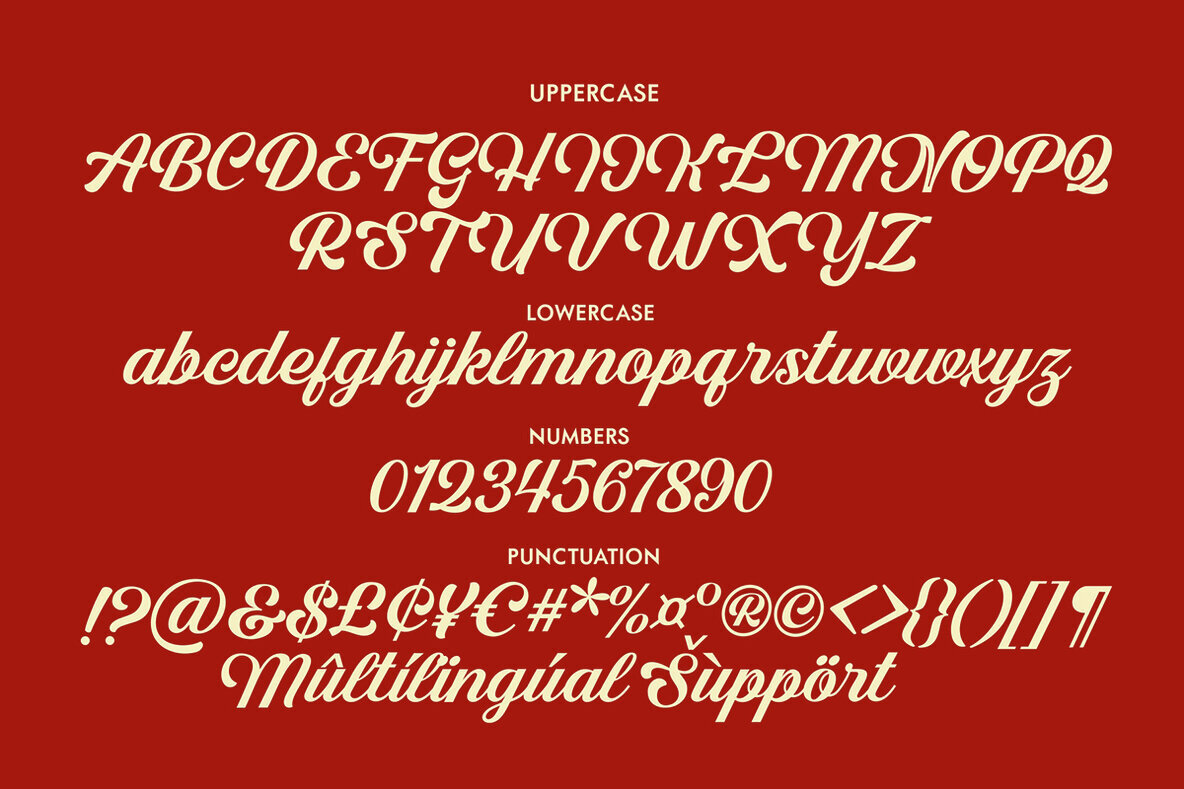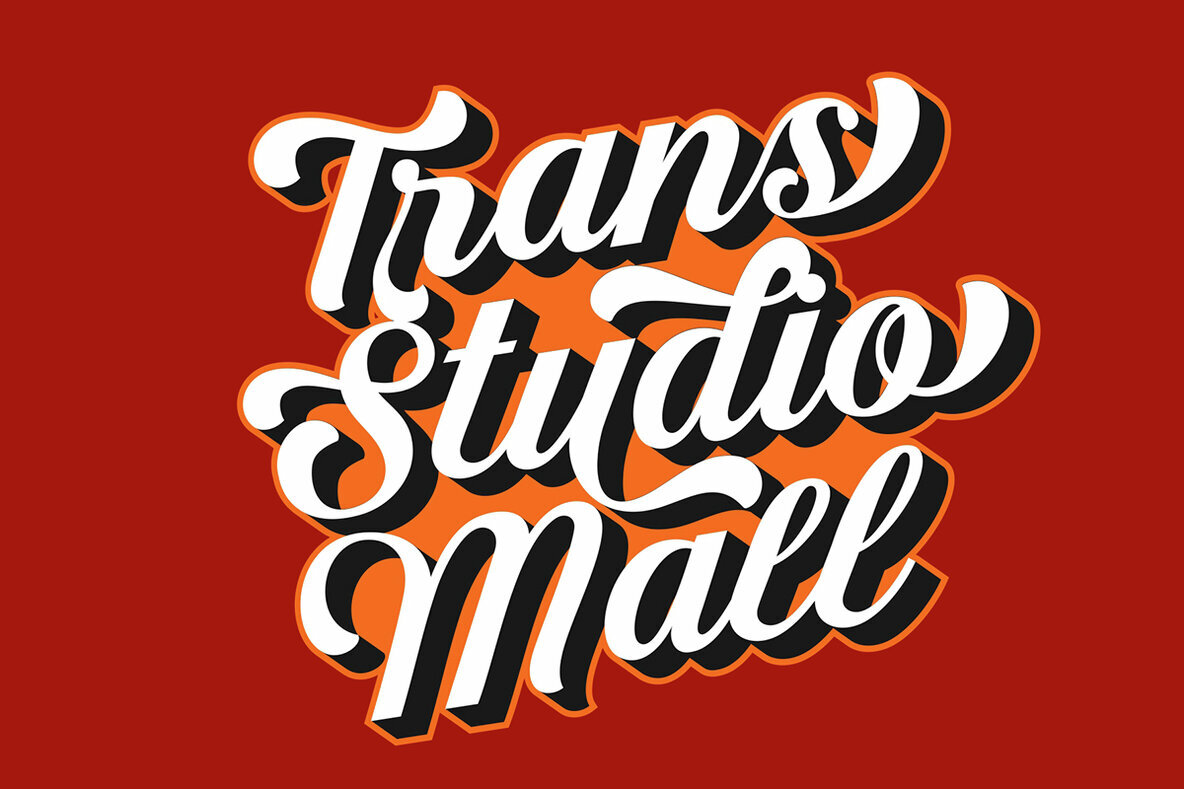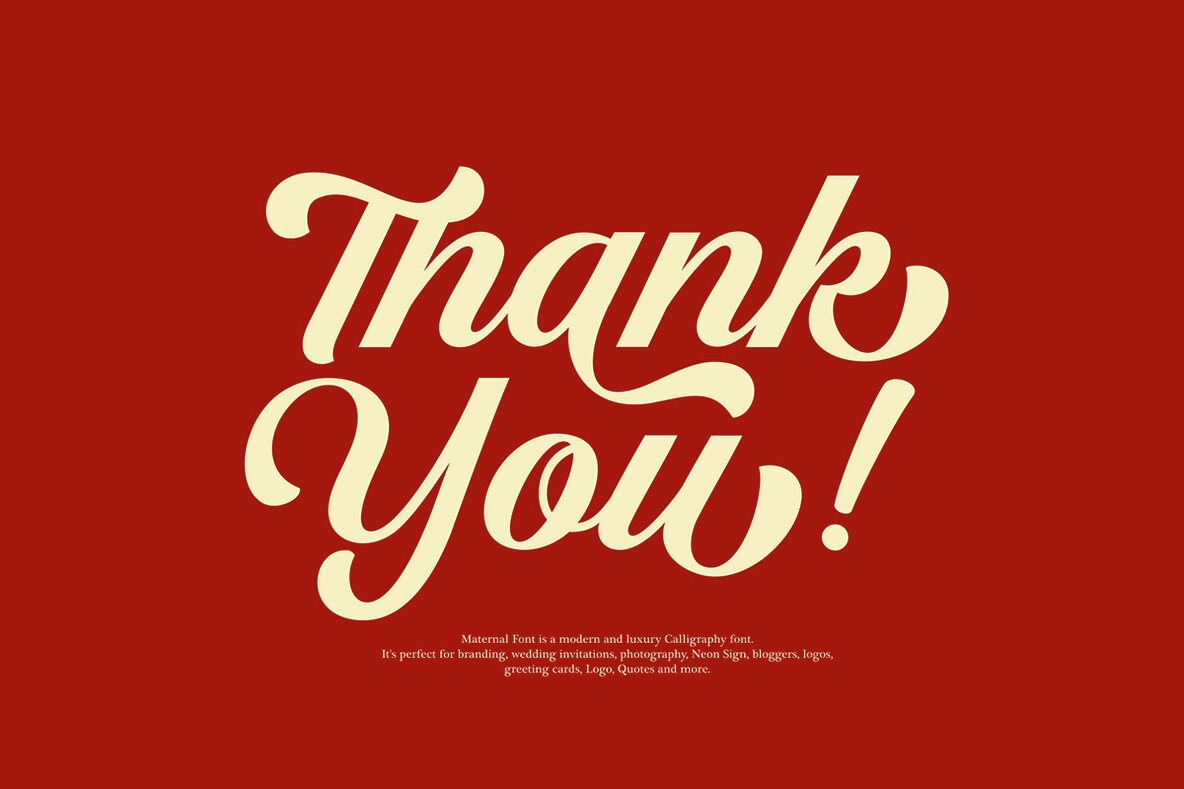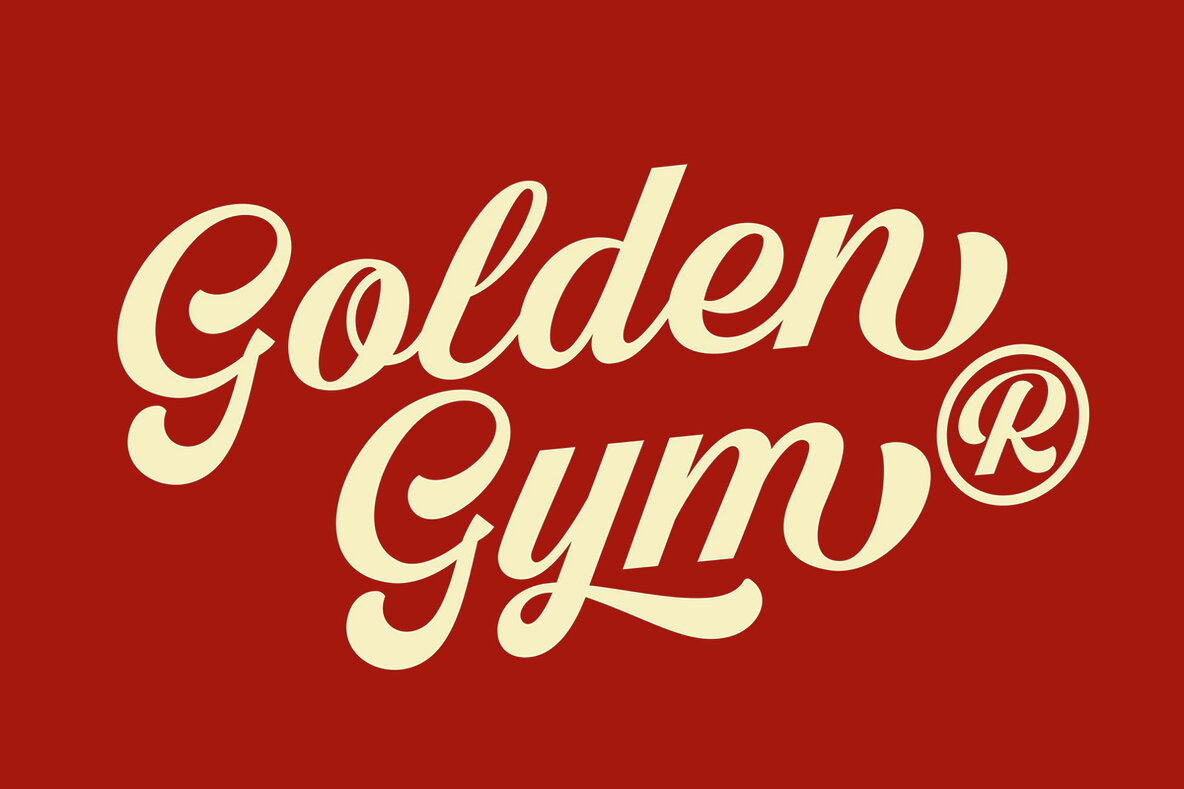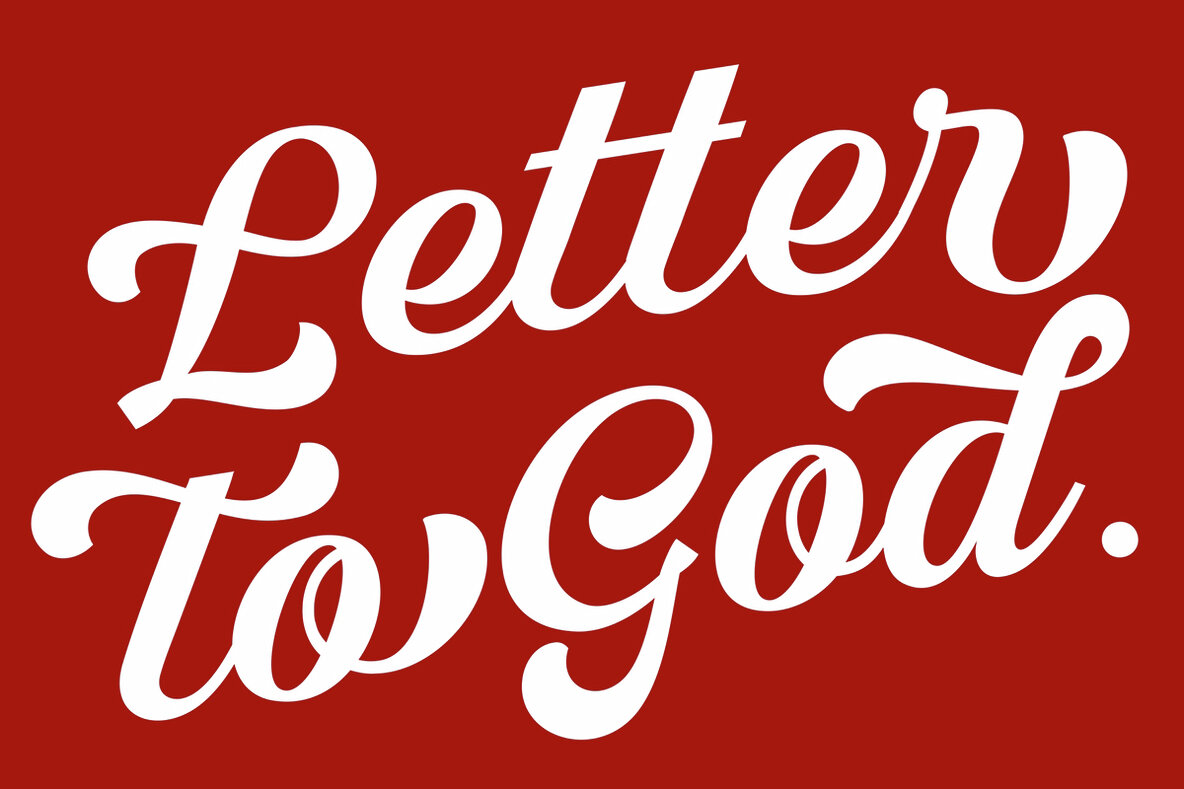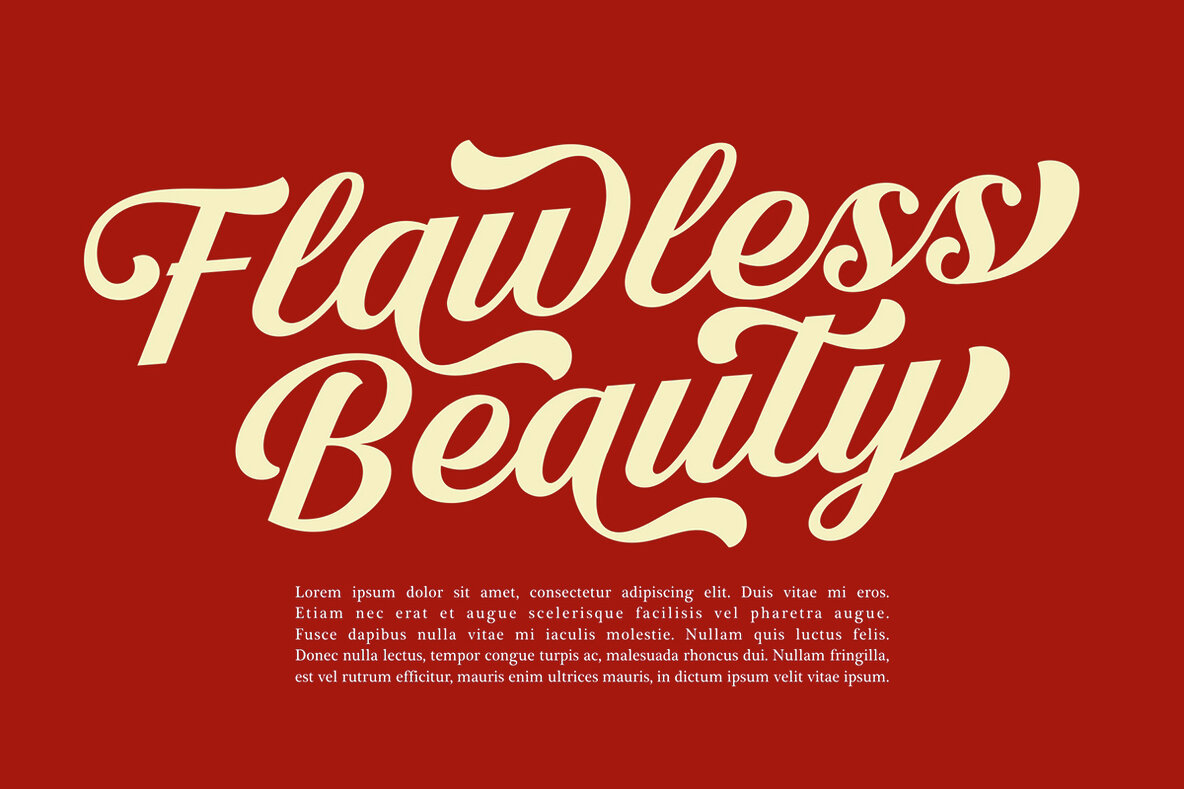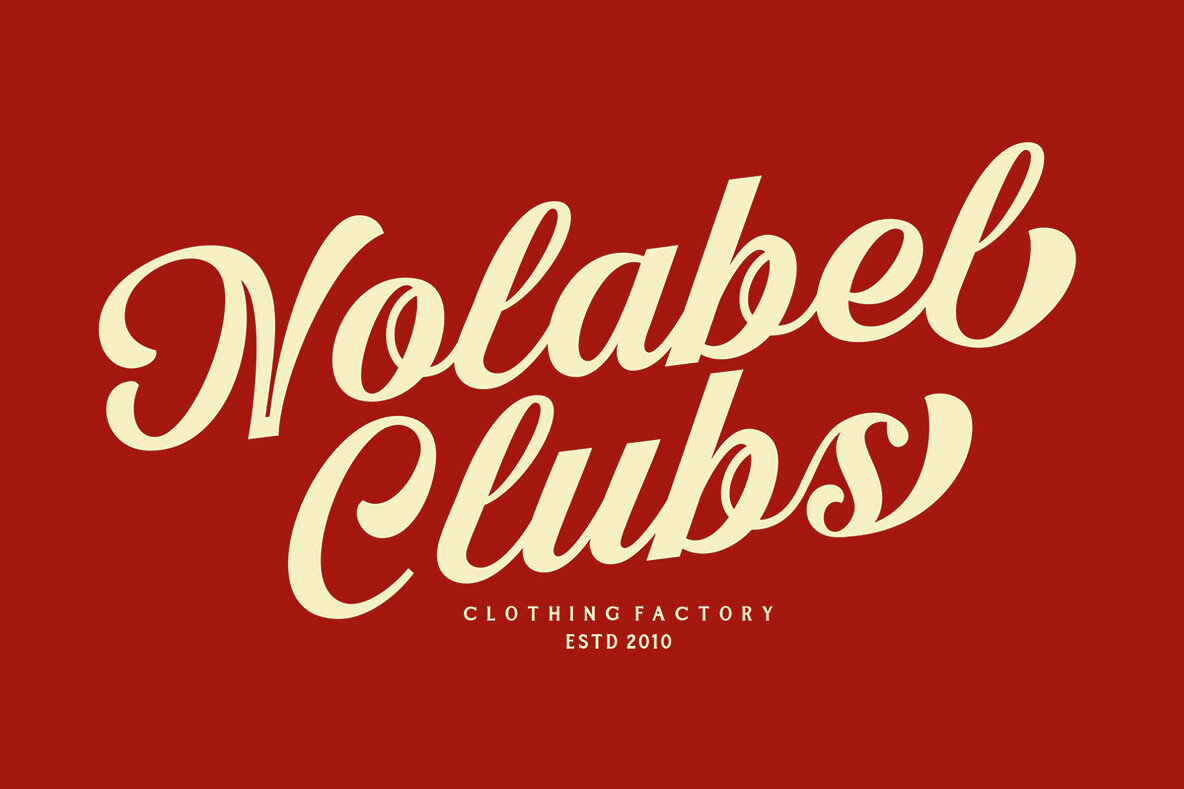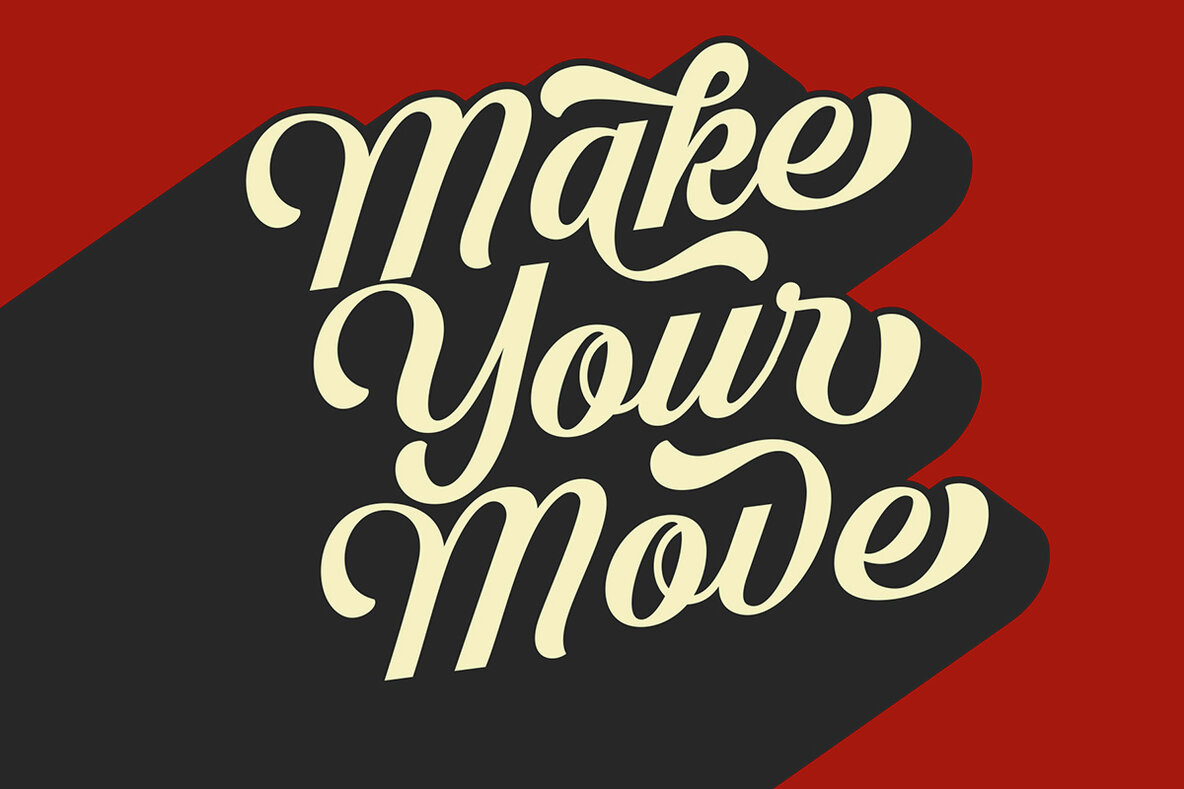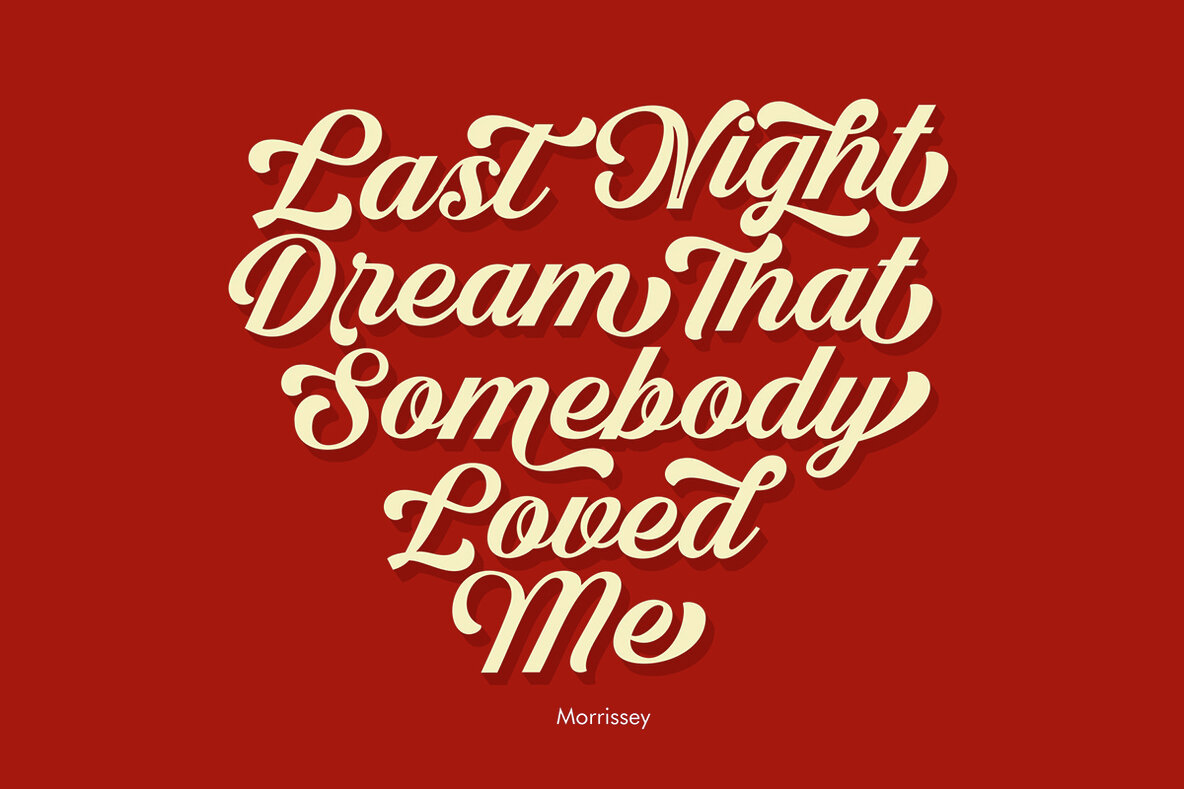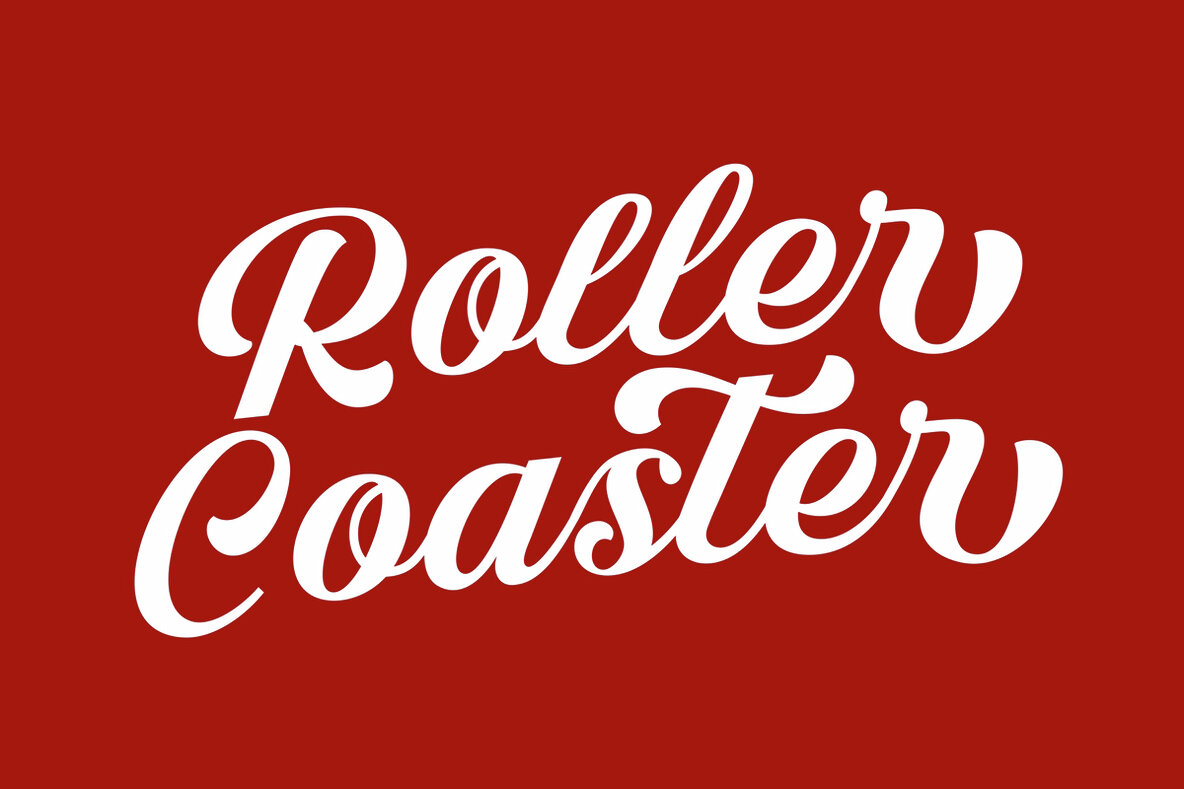
Ladger Font
Ladger Regular
Ladger Font is a casual calligraphy script that brings a relaxed yet elegant charm to your projects. Ideal for branding, wedding invitations, photography, neon signs, logos, greeting cards, and quotes, this font offers versatility across a range of design needs.
The font features both uppercase and lowercase letters, numeric characters, and multilingual support. It also includes stylistic alternates (Ss01, Ss02, Ss03) and ligatures, allowing for customized textual expressions. Designed with PUA Encoded support, it ensures compatibility with a broader range of design software like Silhouette and Inkscape.